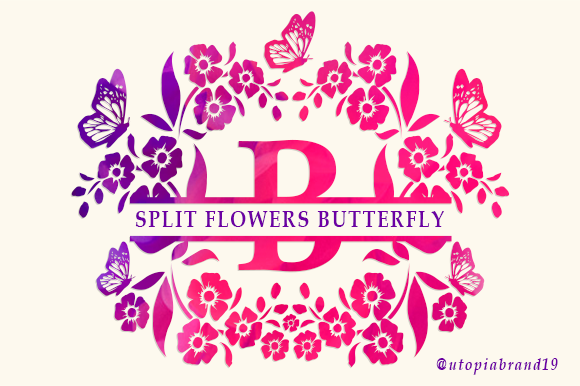
Unleash your creativity and embark on a whimsical journey with the Split Flowers Butterfly Monogram Font, a captivating decorative font that will transform your designs into breathtaking masterpieces. Immerse yourself in its intricate details, meticulously crafted to evoke a sense of wonder and enchantment. Each character is adorned with delicate butterfly motifs and flourishing floral patterns, creating a visual spectacle that will leave your audience spellbound.
With the Split Flowers Butterfly Monogram Font, you hold the key to unlocking a world of possibilities. Whether you're crafting eye-catching posters, designing enchanting invitations, or creating personalized gifts, this font will elevate your creations to new heights of elegance and sophistication. Its versatility knows no bounds, seamlessly adapting to a myriad of design styles, from whimsical and playful to classic and timeless.
Step into a realm where imagination reigns supreme, where every letter dances with grace and charm. Allow the Split Flowers Butterfly Monogram Font to guide you as you weave tales of enchantment, crafting designs that capture hearts and ignite imaginations. Embrace its allure and watch as your projects blossom into works of art, leaving an indelible mark on all who behold them.
As you explore the depths of this extraordinary font, you'll discover a treasure trove of exquisite details that will captivate your senses. Intricate butterfly wings flutter delicately upon each character, while delicate floral arrangements entwine themselves around the edges, creating a symphony of visual delight. With every word you craft, you'll immerse yourself in a world of wonder, where creativity knows no limits.
The Split Flowers Butterfly Monogram Font is more than just a collection of characters; it's an invitation to embark on a creative odyssey, where your imagination holds the brush and the digital canvas awaits your artistry. Transform ordinary words into extraordinary works of art, leaving a trail of beauty wherever your designs may lead. As you immerse yourself in its enchanting embrace, you'll discover a newfound passion for design, fueled by the magic that lies within this remarkable font.